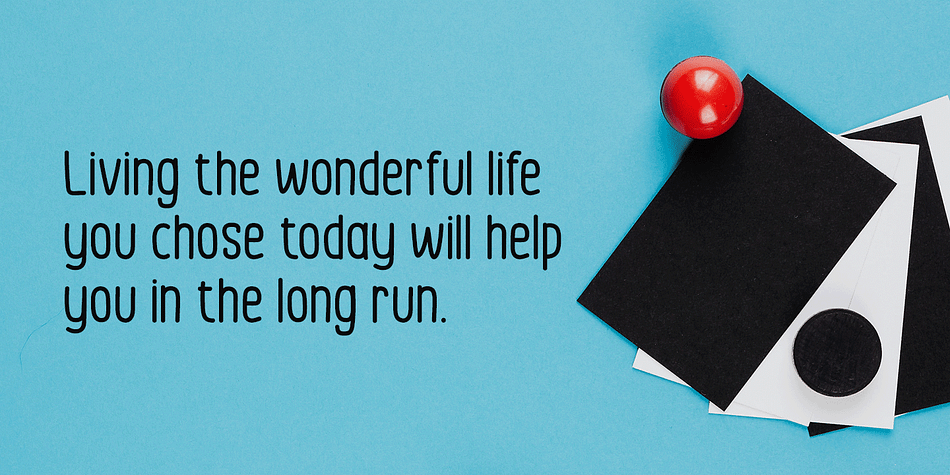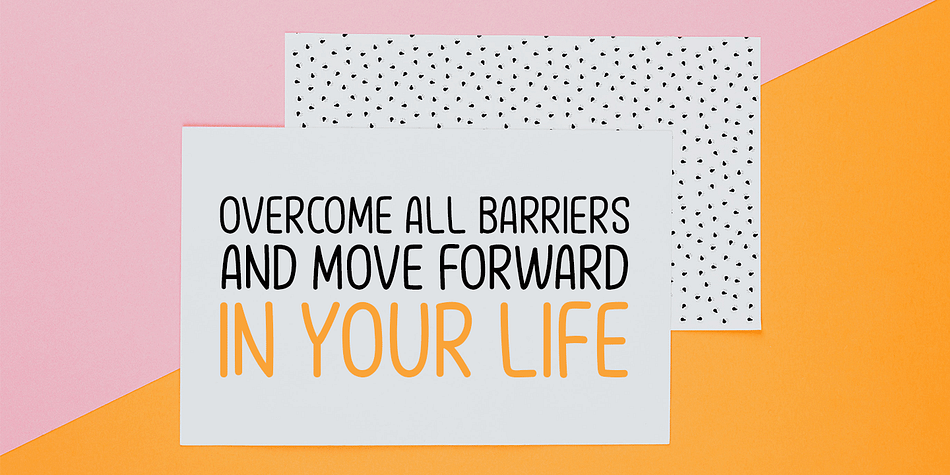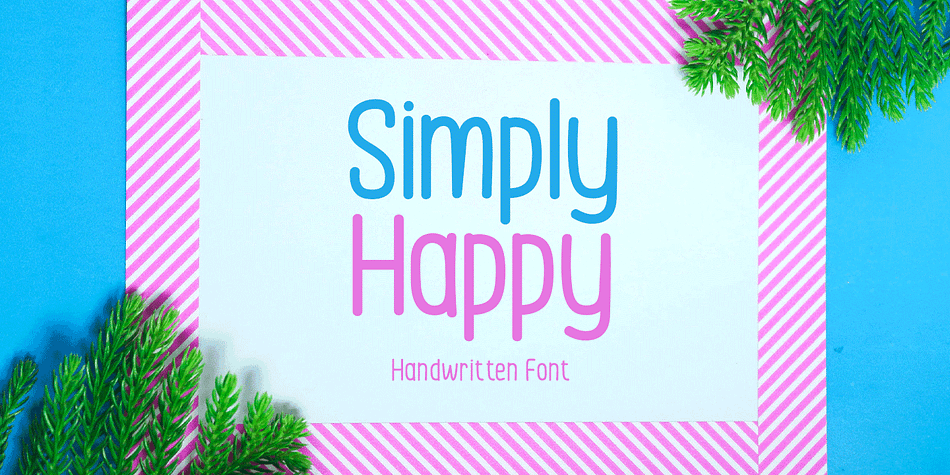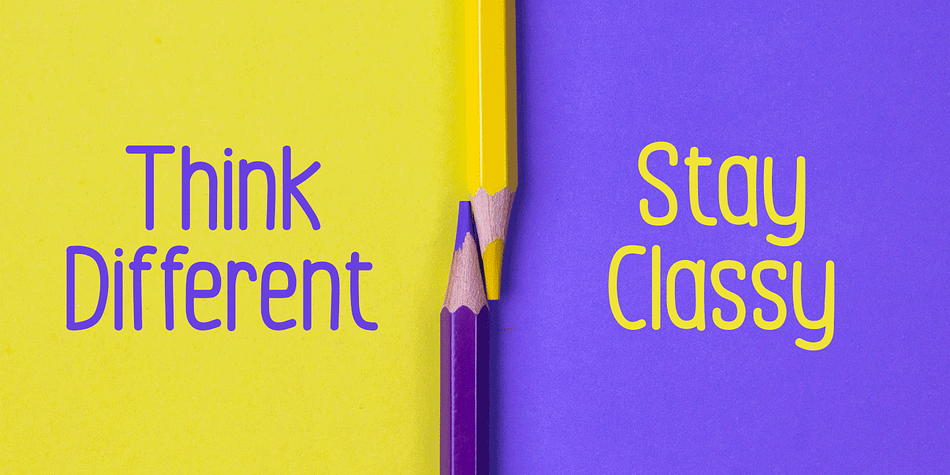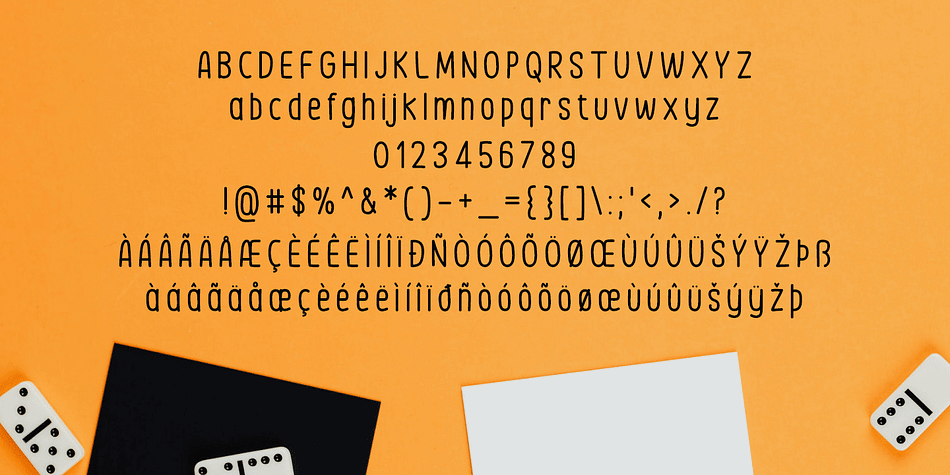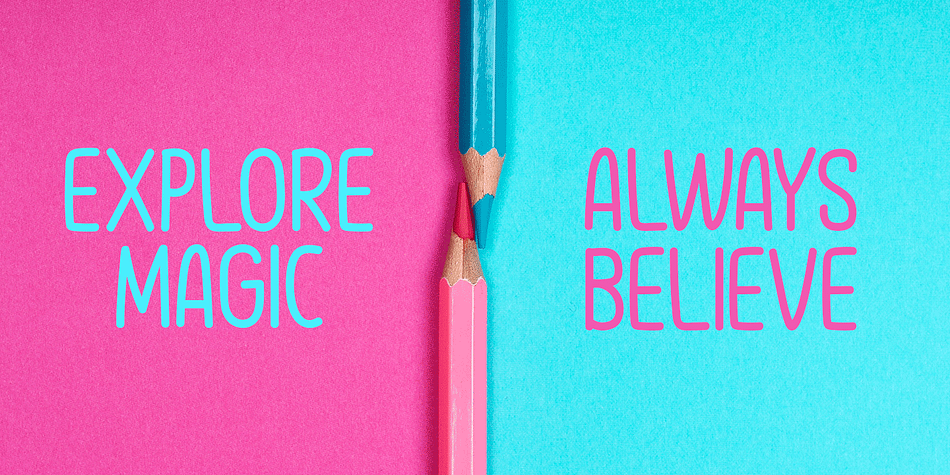
Simply Happy
Designed by Md. Shohail Bhuiyan, Simply Happy is a hand drawn font family published by Seemly Fonts.
For stationery, logos, t-shirts, print design, website headers, photo frames, flyers, music album covers, posters, image sliders, and much more, Simply Happy is a handwritten typeface that works beautifully. Your favorite creative ideas will come to life when you add this typeface to them.